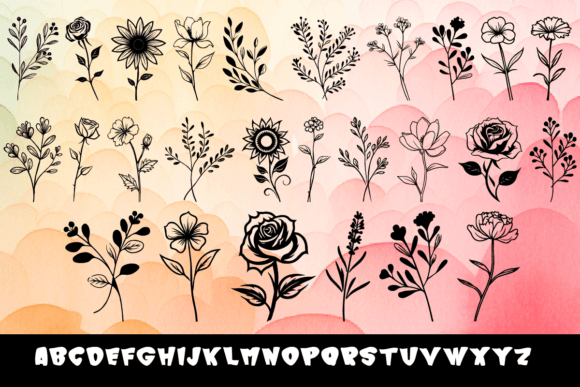
Introduction to Leaves with Flower Font
As a designer, there’s nothing quite like the thrill of bringing a creative project to life. You’ve spent hours brainstorming ideas, refining your concept, and pouring your heart into every detail. And then, just as you’re about to hit publish, you realize that something’s missing – a touch of whimsy, a dash of elegance, a sprinkle of natural beauty. That’s where the Leaves with Flower Font comes in, a delightful digital product that’s about to become your new best friend.
With its 26 intricately designed letters, each adorned with a unique combination of leaves and flowers, this charming font is the perfect addition to any design project. Whether you’re crafting invitations, designing digital art, or enhancing your website, the Leaves with Flower Font offers a versatile and organic aesthetic that’s sure to impress.
Key Features of Leaves with Flower Font
- High-quality design resource ideal for creative projects, with a transparent background for easy customization.
- Unique, hand-drawn design featuring intricate leaves and flowers, adding a touch of elegance to any project.
- Perfect for use in logos, branding, packaging, and other design projects where a natural, organic feel is desired.
Honest Review: Leaves with Flower Font
I recently came across the Leaves with Flower Font, a beautiful design resource that caught my attention. As a designer, I’m always on the lookout for unique and high-quality elements to elevate my creative projects.
- ✨ The font’s intricate design and delicate details make it perfect for spring or garden-themed projects.
- ✨ The transparent background allows for seamless integration with any design, making it incredibly versatile.
- ⚠️ The font’s high level of detail may not be suitable for small-scale designs or projects where the text needs to be bold and clear.
- ⚠️ Some users may find the font’s aesthetic too ornate or overpowering, which could detract from the overall design.
Overall, I’m impressed with the Leaves with Flower Font’s unique design and high-quality execution. While it may not be suitable for every project, it’s an excellent choice for designers looking to add a touch of elegance and whimsy to their creative projects.
Leaves with Flower Font
In Adobe Photoshop and Illustrator, you can import the font file and use it as a text layer. Use the font to create intricate designs and patterns. The transparent background of this font makes it easy to combine with other design elements.
For the best results, use the font in conjunction with a high-quality image or background. You can also experiment with different font sizes and colors to create a unique design.
This font is ideal for creative projects such as wedding invitations, baby showers, and birthday parties. You can also use it for digital design projects, such as social media graphics and website headers.
Botanical Bliss Font
Botanical Bliss Font is a high-quality, free download that features a beautiful collection of leaves and flowers. It’s ideal for designers who want to add a touch of nature to their creative project. This font offers a more stylized and artistic approach compared to Leaves with Flower Font, making it perfect for designers who want to add a unique twist to their design.
How do I edit the Leaves with Flower Font to create custom designs and variations?
You can edit the Leaves with Flower Font using a vector graphics editor, such as Adobe Illustrator or Inkscape. To edit the font, simply open the file in your chosen editor and use the various tools and features to